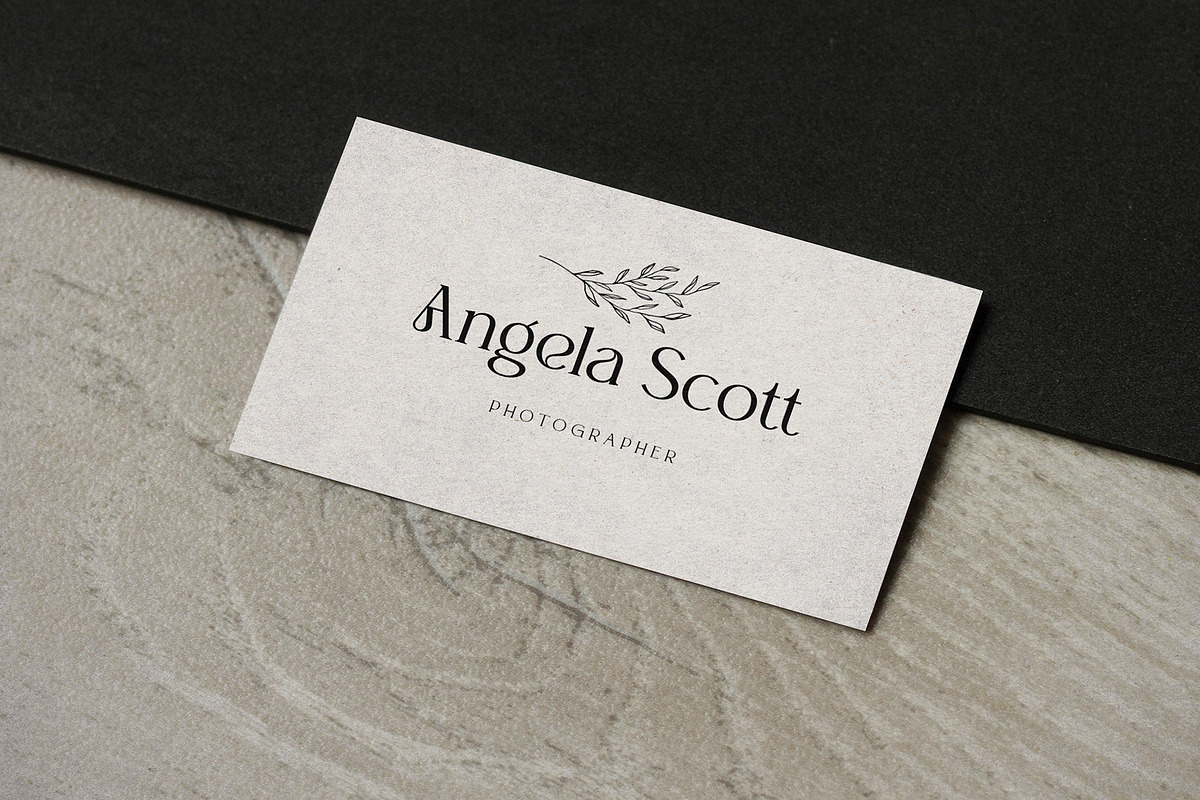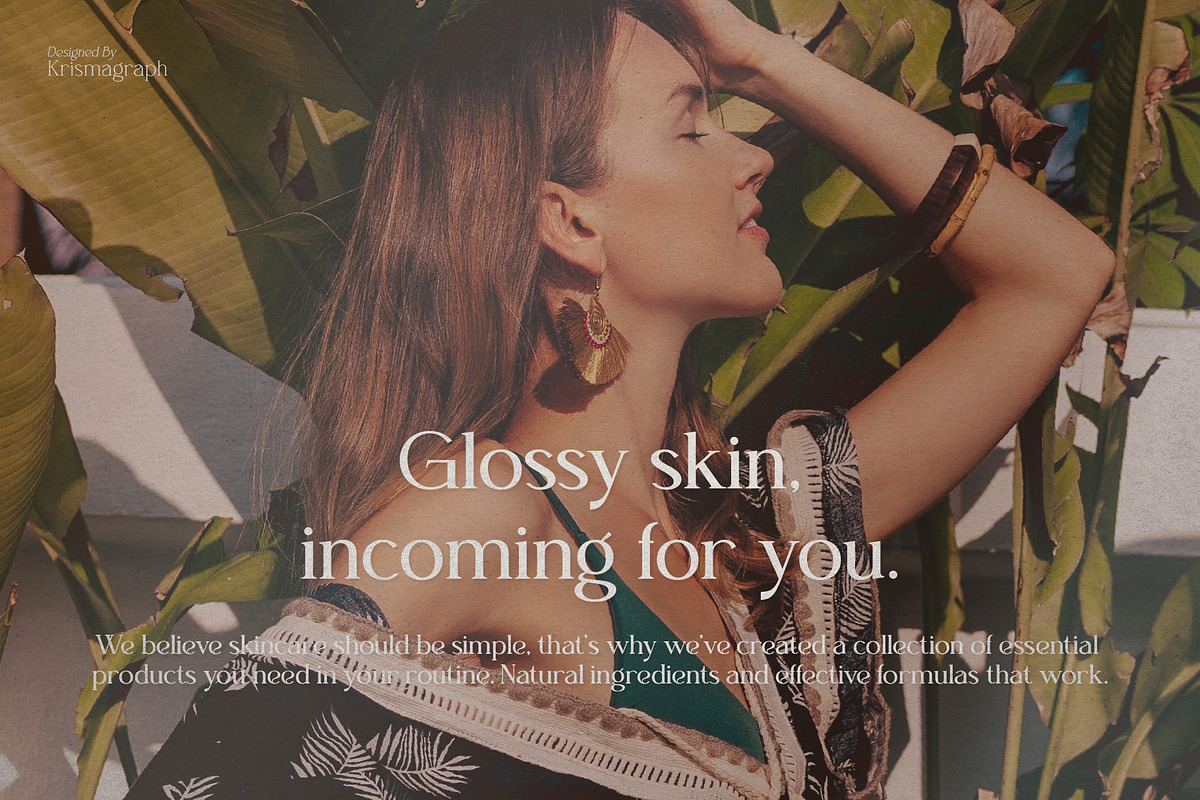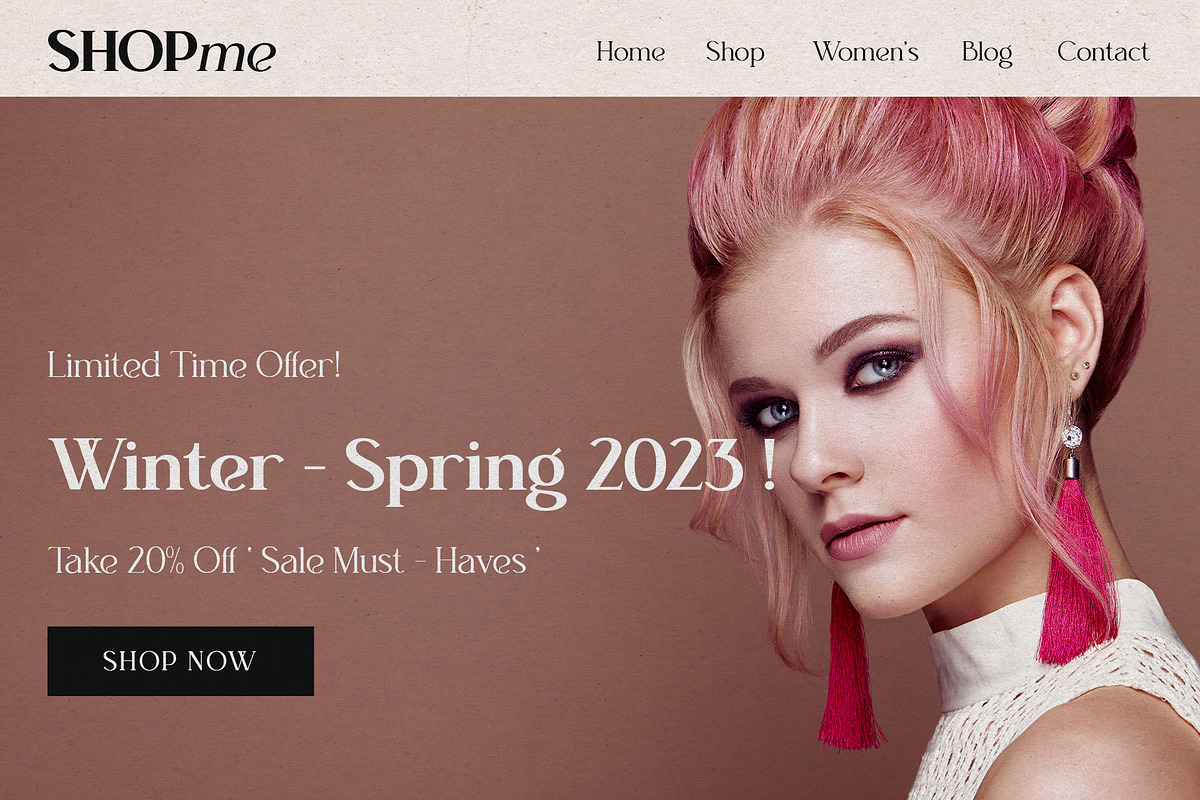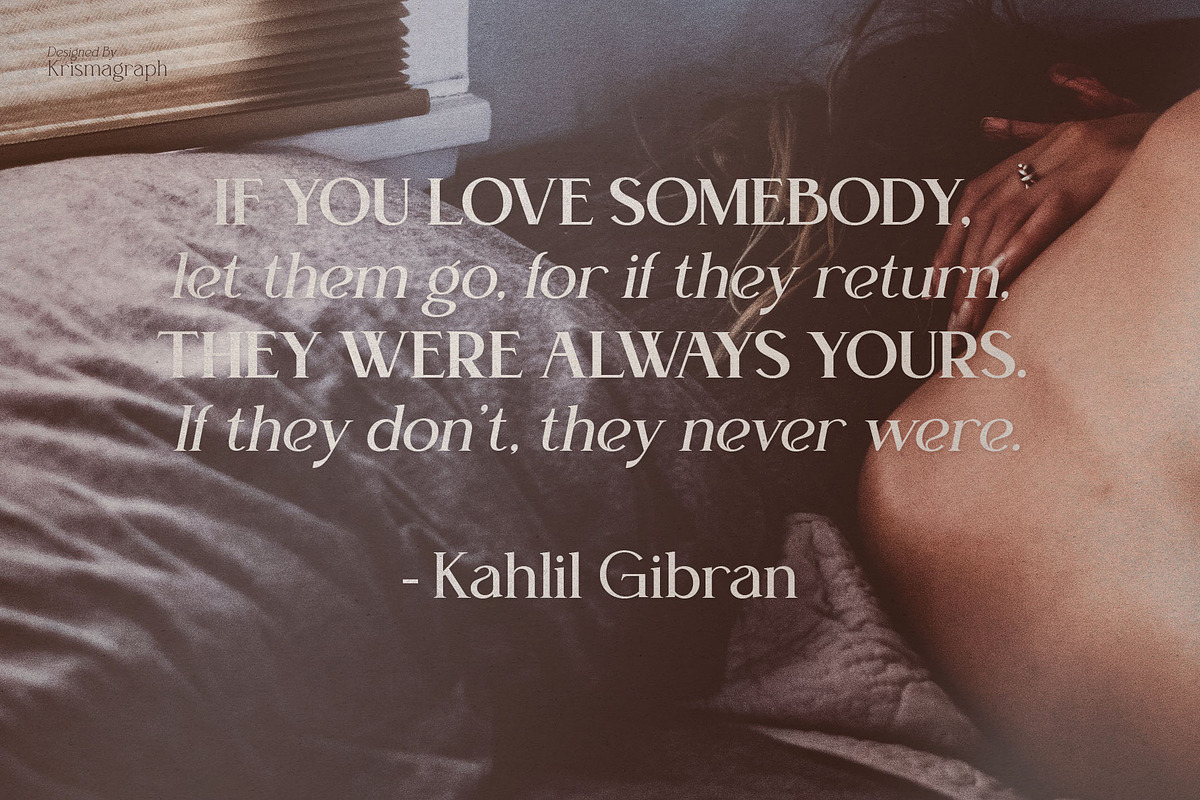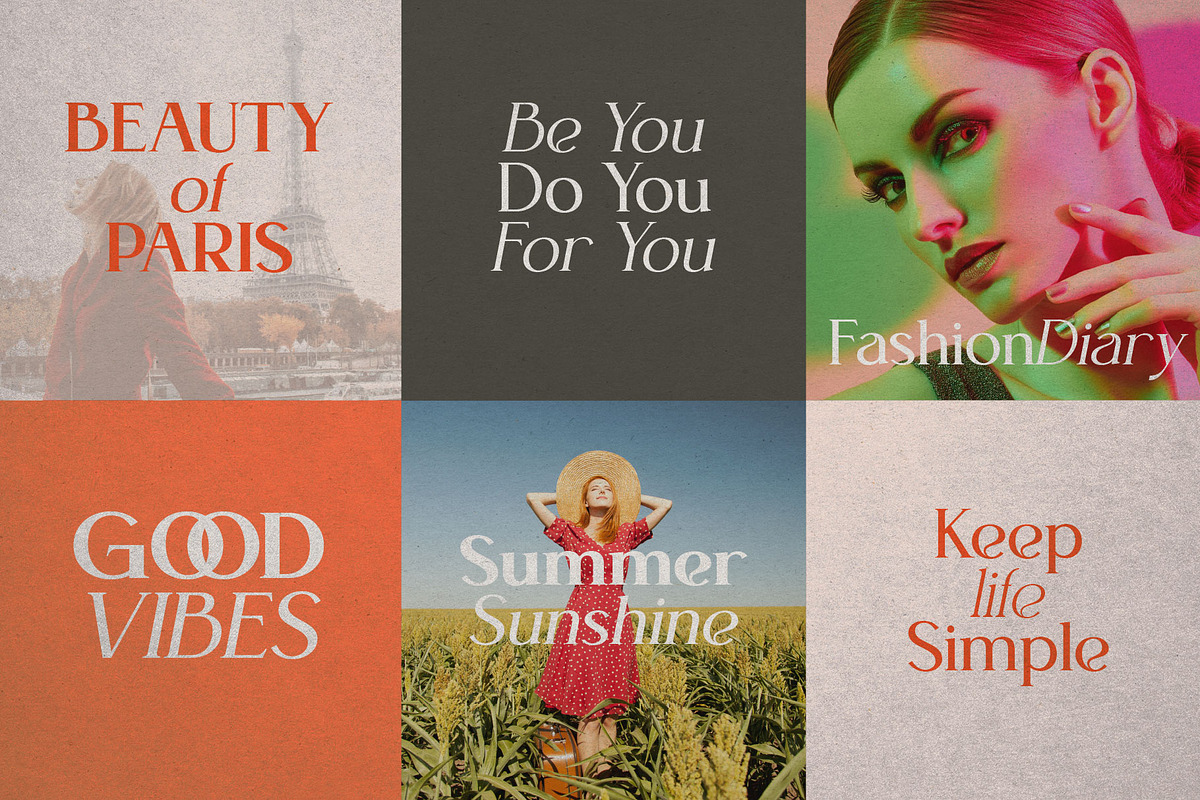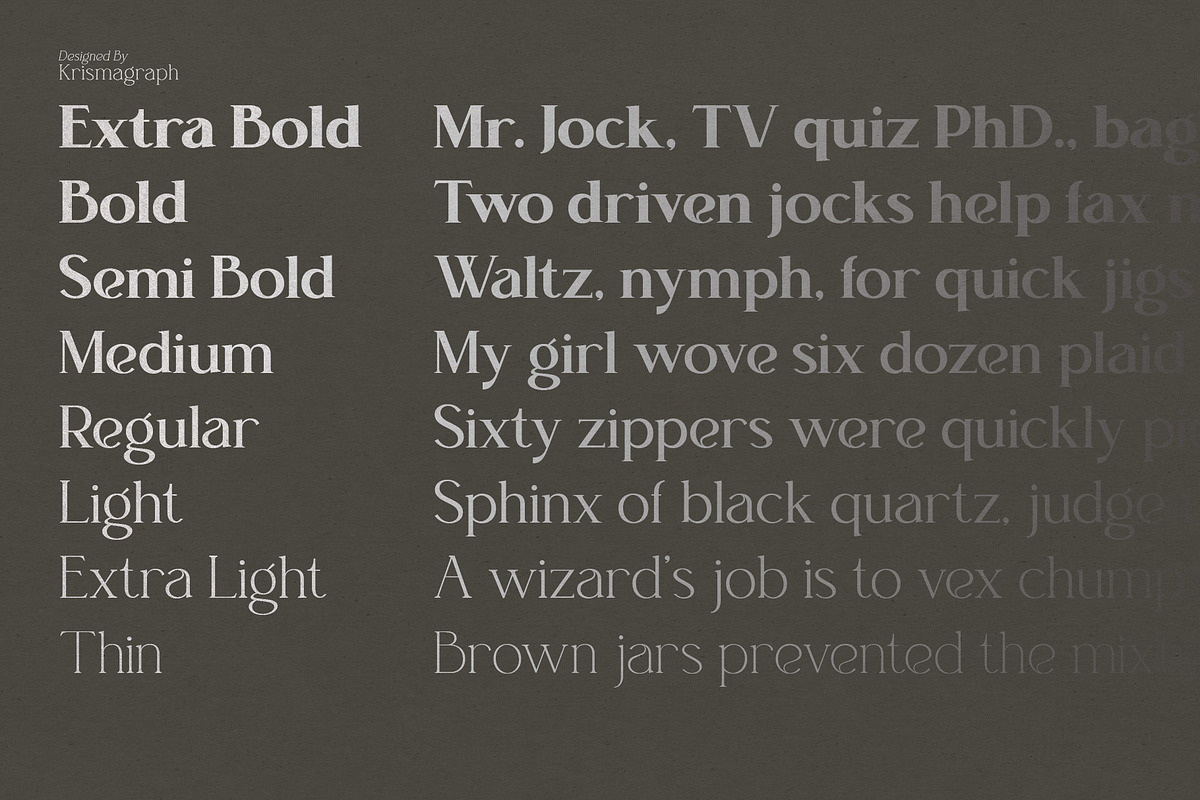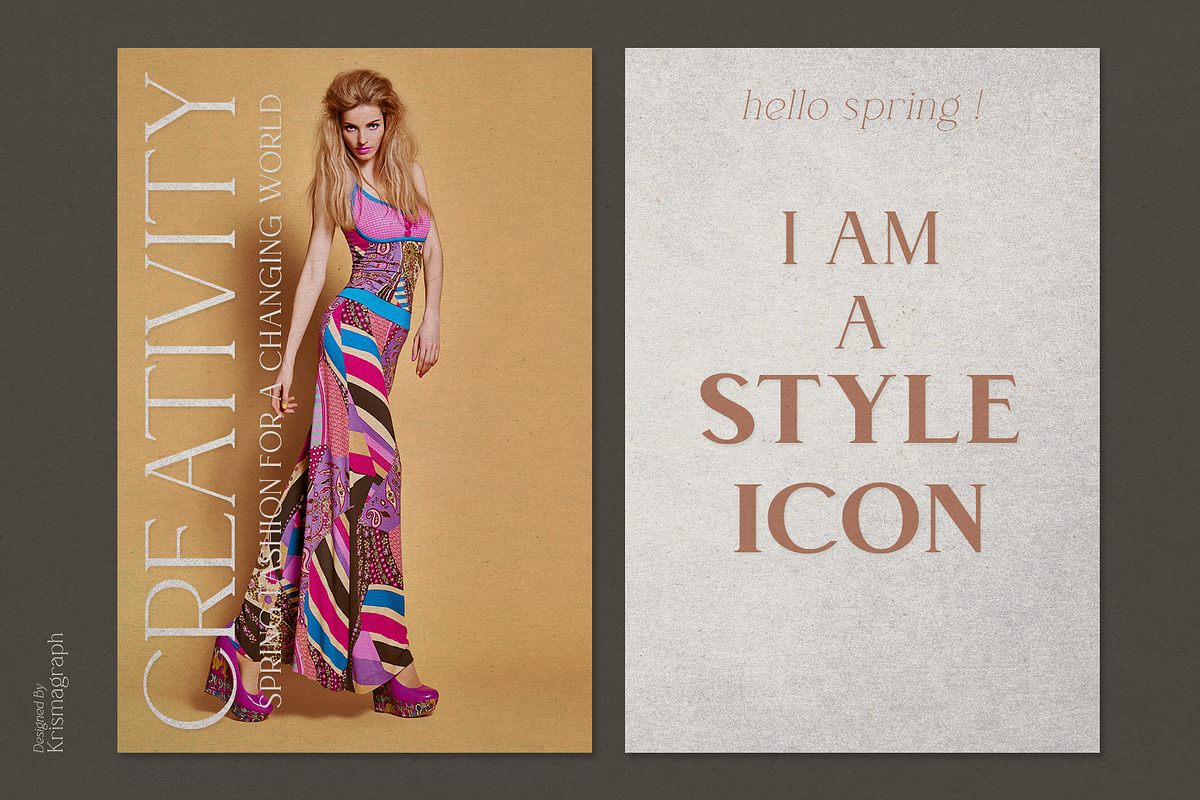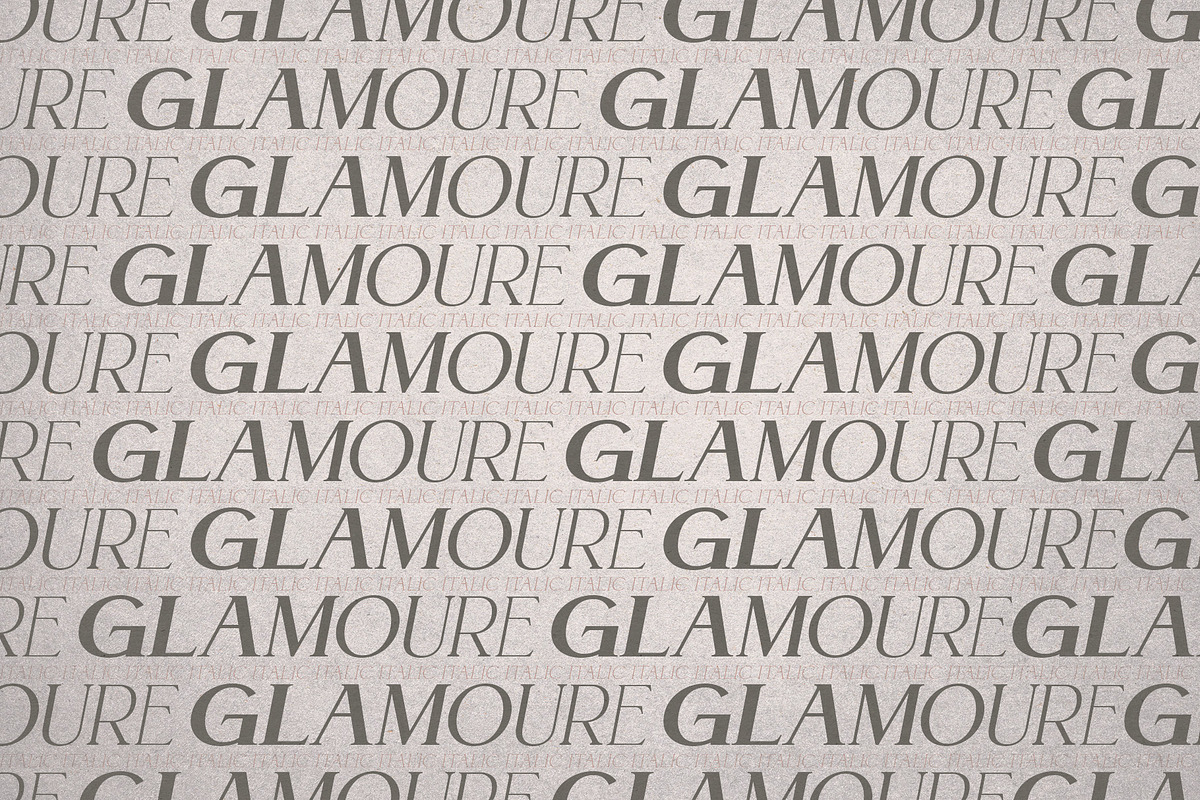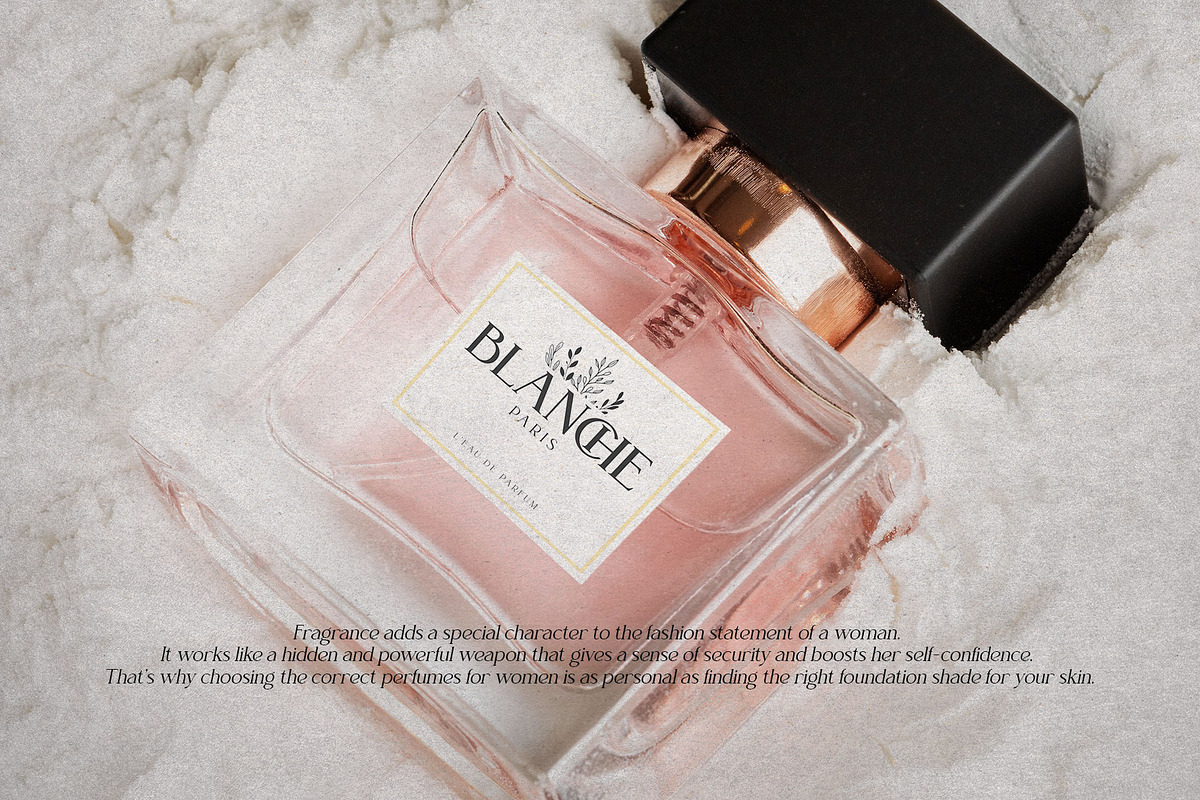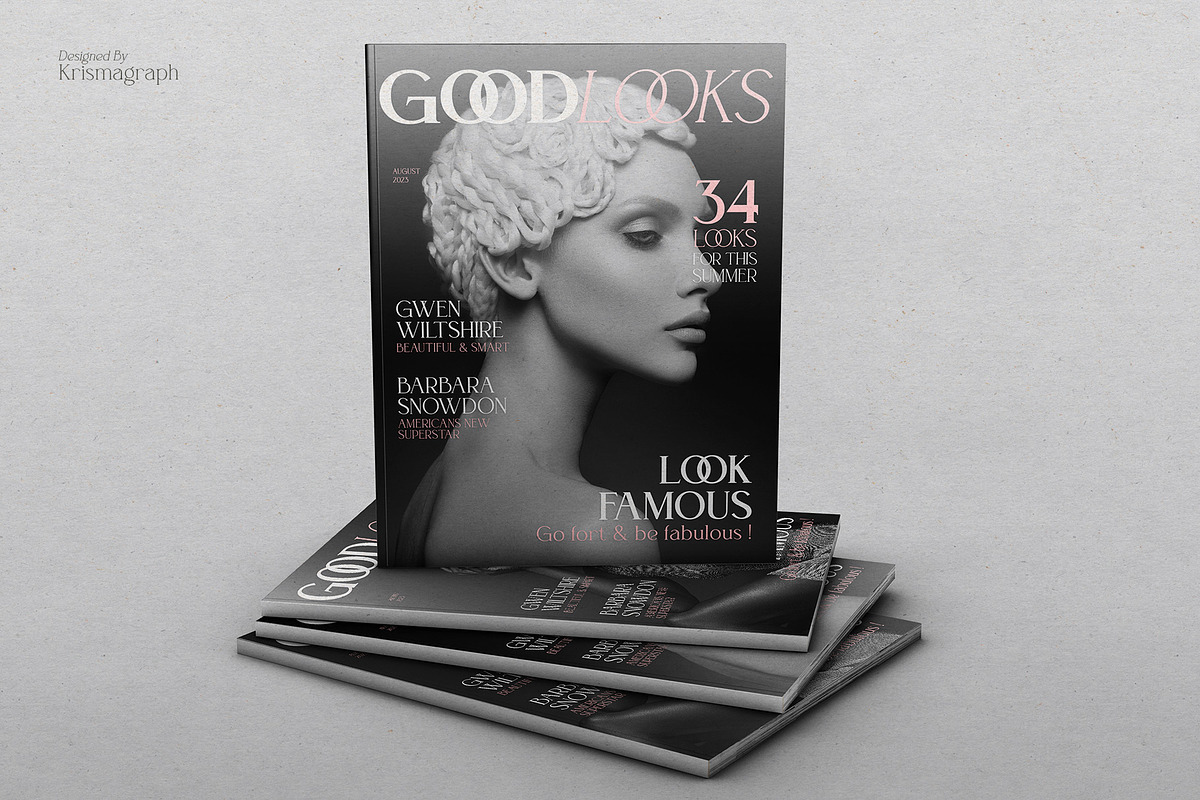
Glamoure Everyday | Serif Family
Introducing Glamoure Everyday Serif Font Family. 8 weights and italics (16 fonts total), I've also included a variable font.
Glamoure Everyday is made mainly for headlines, titles, and other short texts and is well-suited for advertising, vintage mood board, branding, logotypes, packaging, titles, editorial design, modern logos, websites, social media quotes, wedding branding, modern and vintage design.